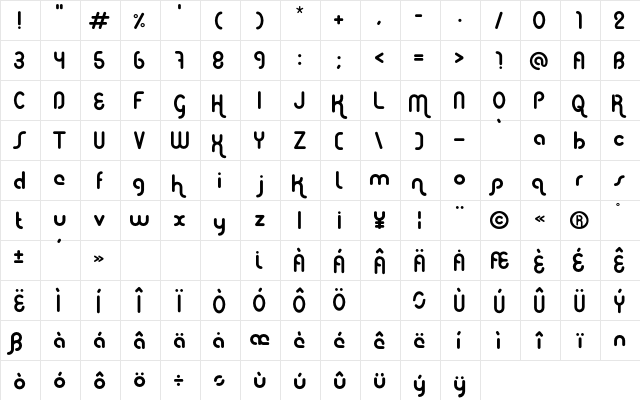
Elephont Regular
| Designer | Lene M. Arensdorff Kristiansen |
Design Context for Elephont Typeface
Elephont offers clean, dependable letterforms without strong stylistic allegiance, making it a practical choice for designers who need flexibility.